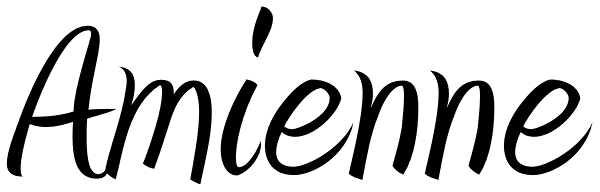
Amienne
Charmingly informal, Amienne is a lively brush script font that moves with a nimble rhythm. Airy and graceful without being overly feminine, Amienne is delicately rounded in all the right places. No wallflower, Amienne Bold is amply proportioned...
Amienne
Amienne Bold